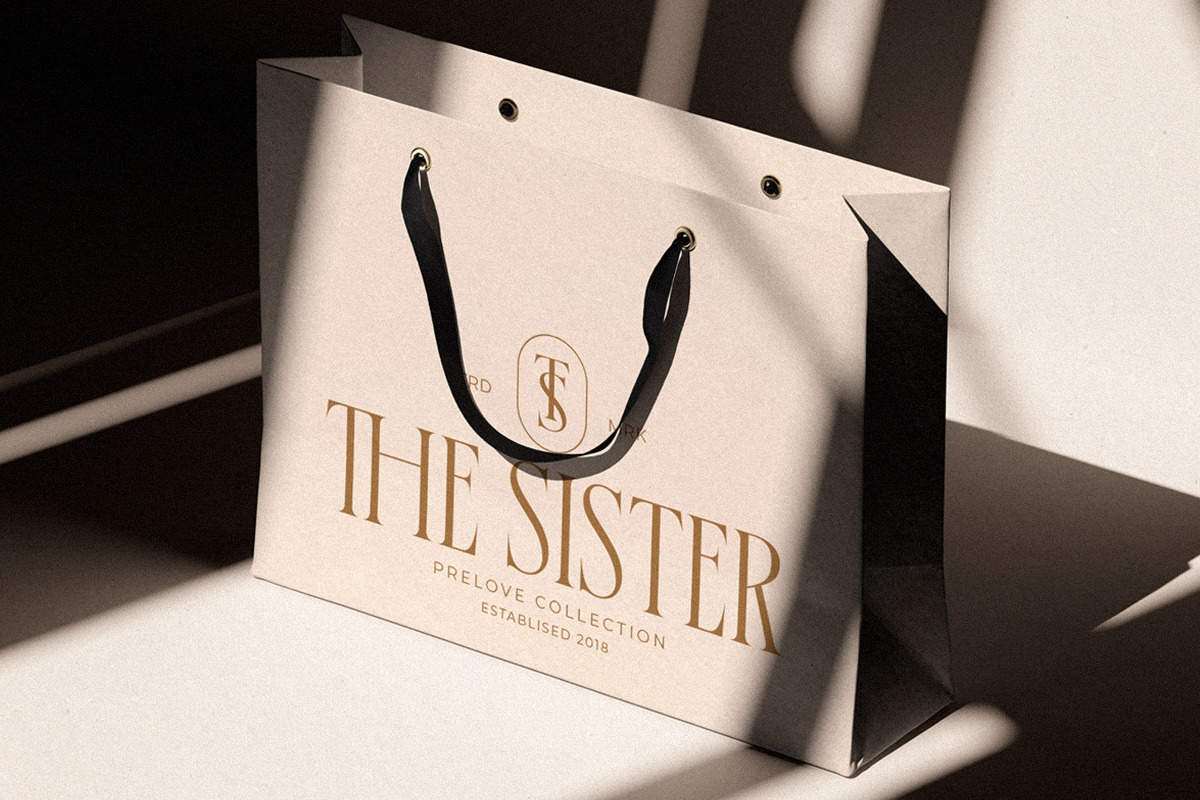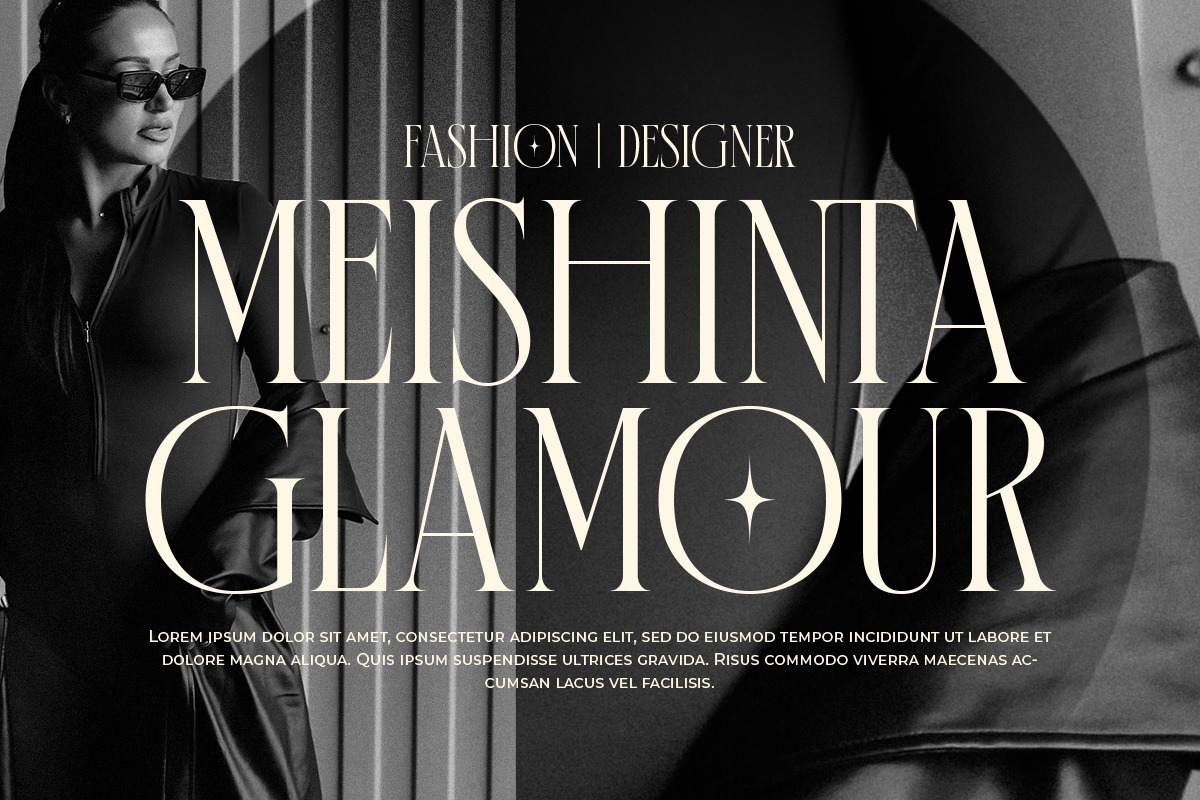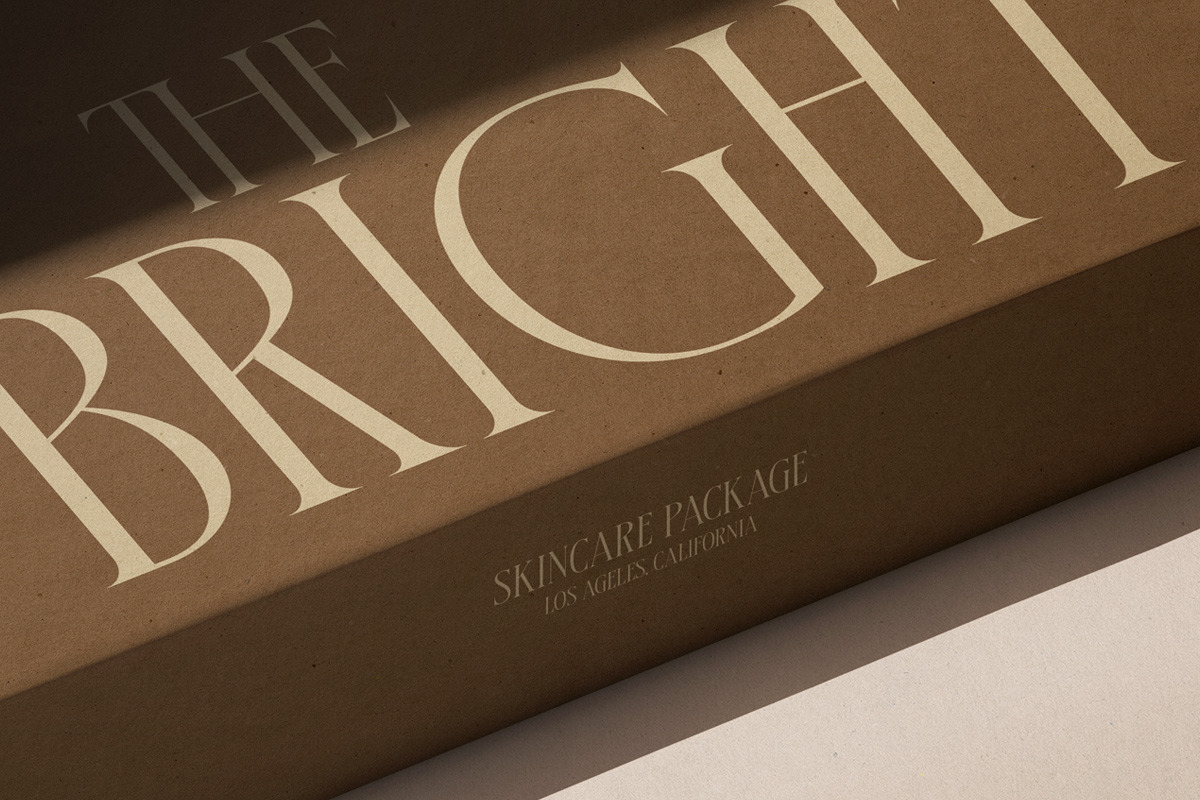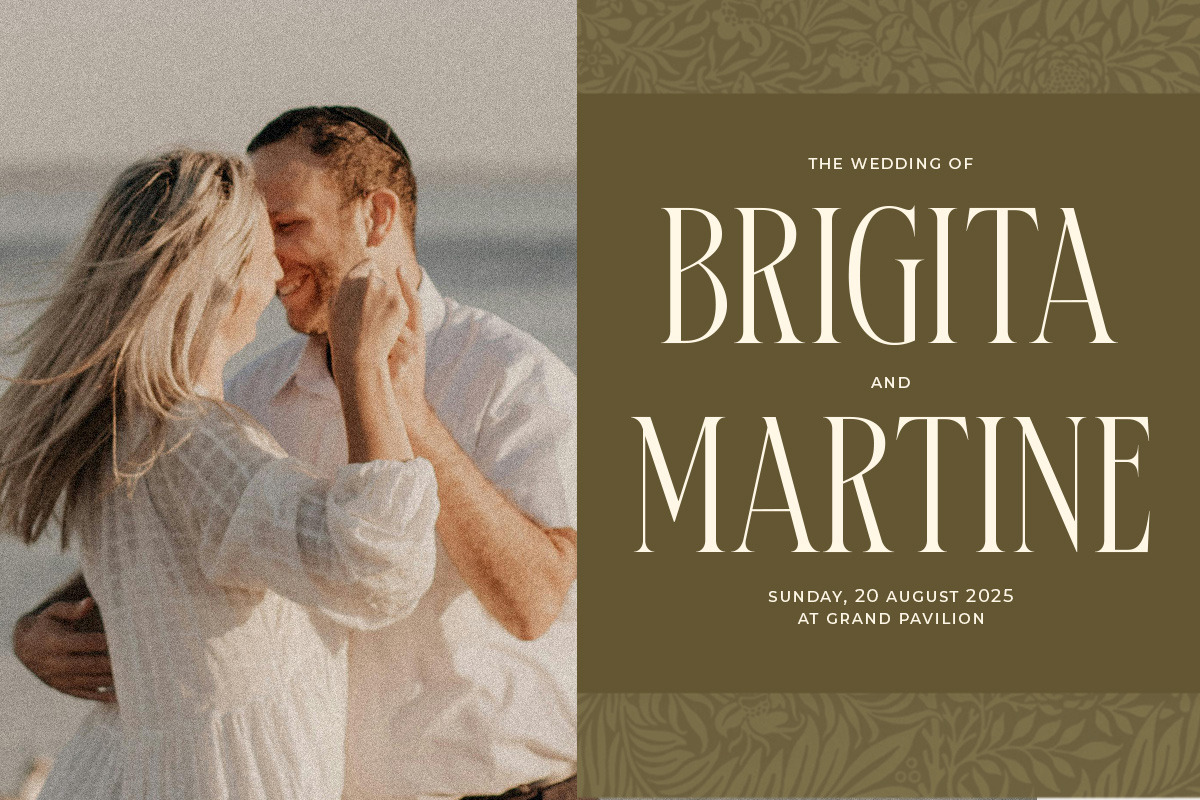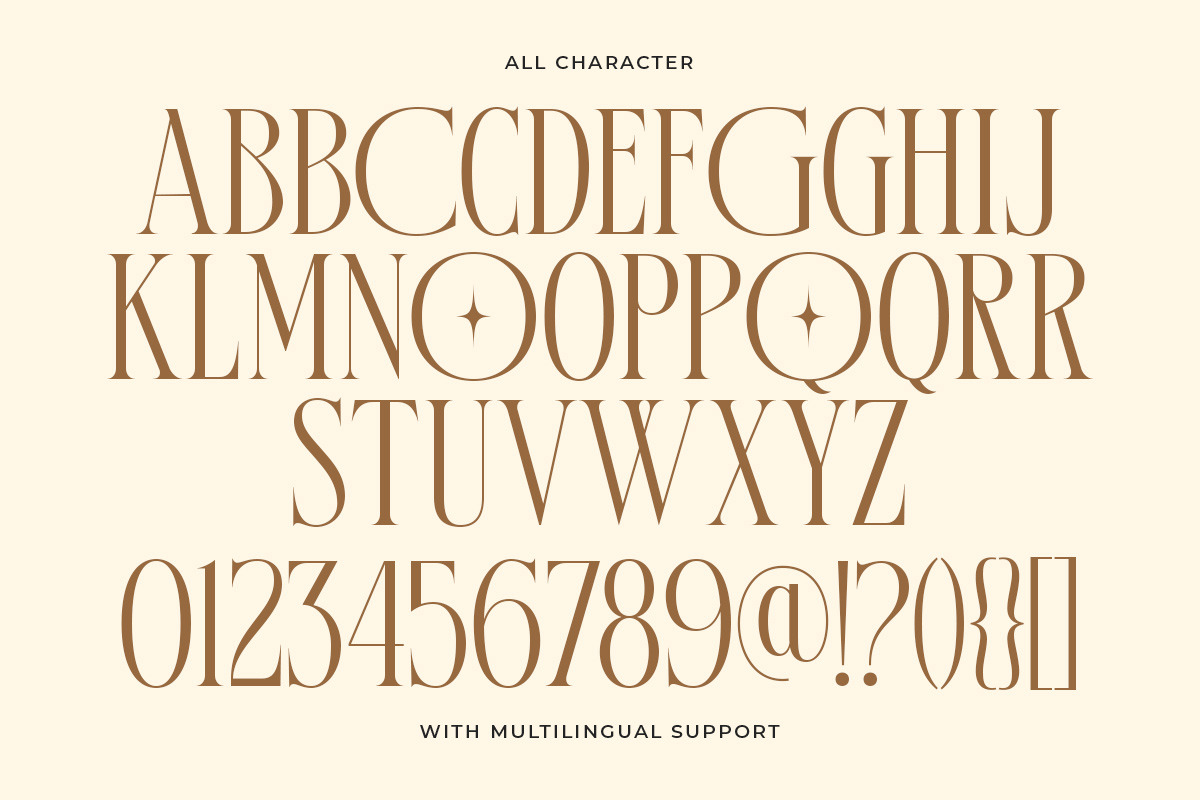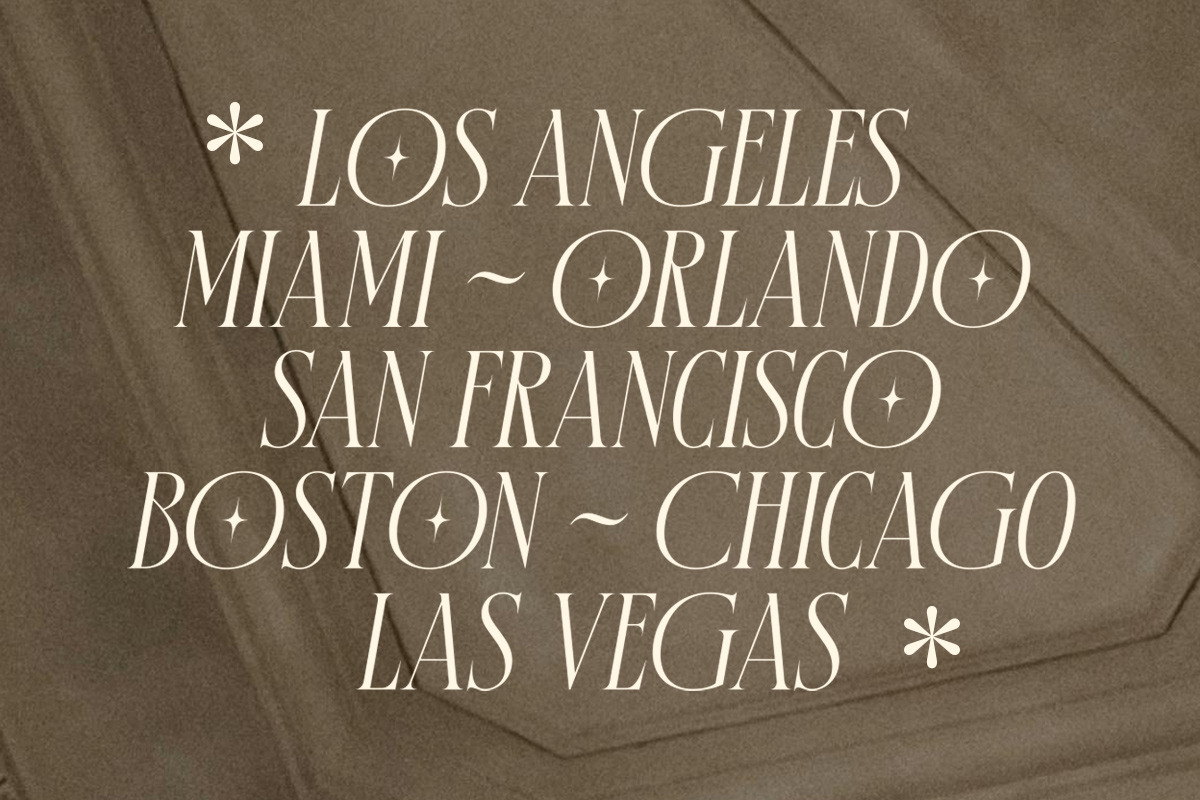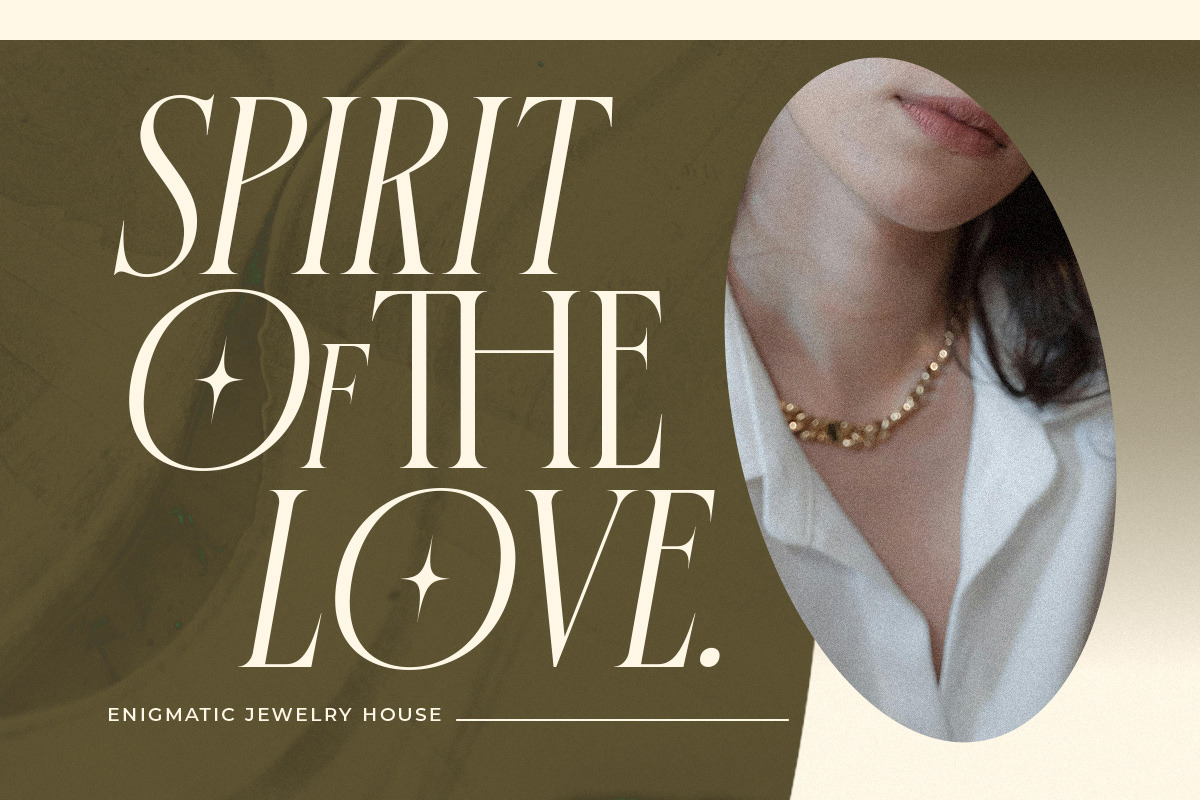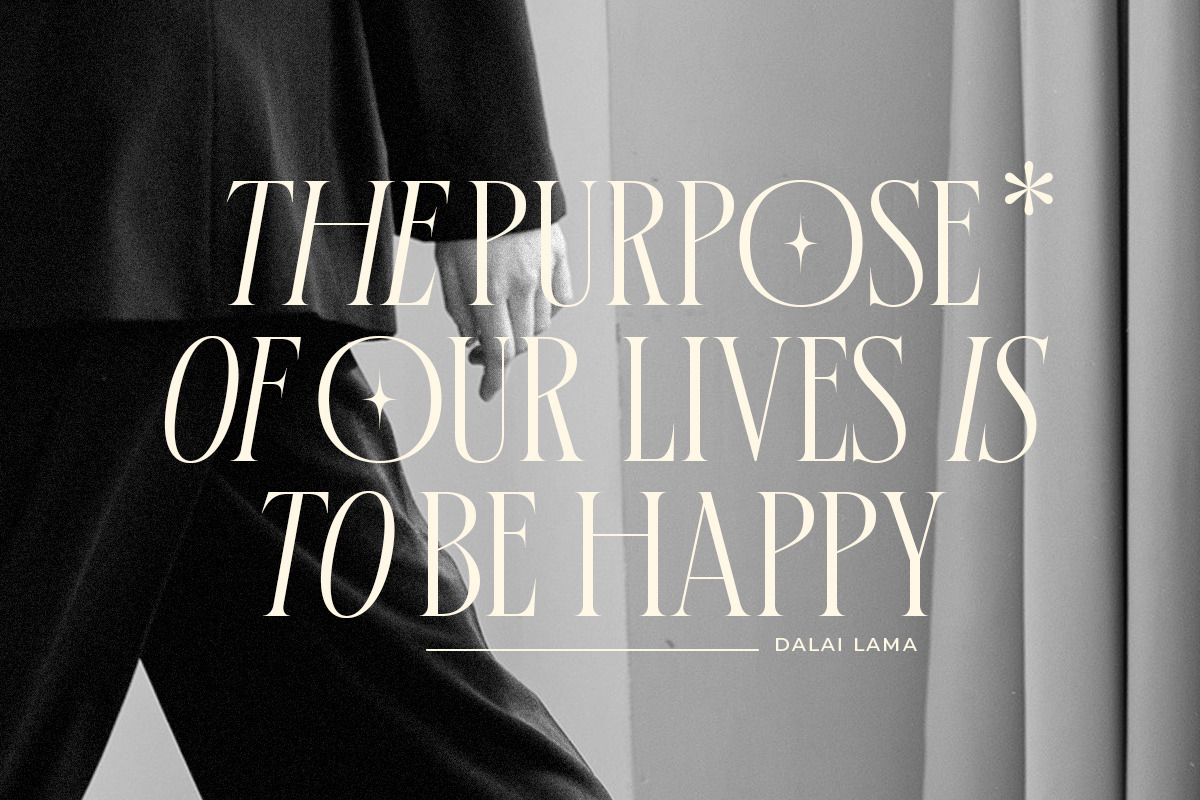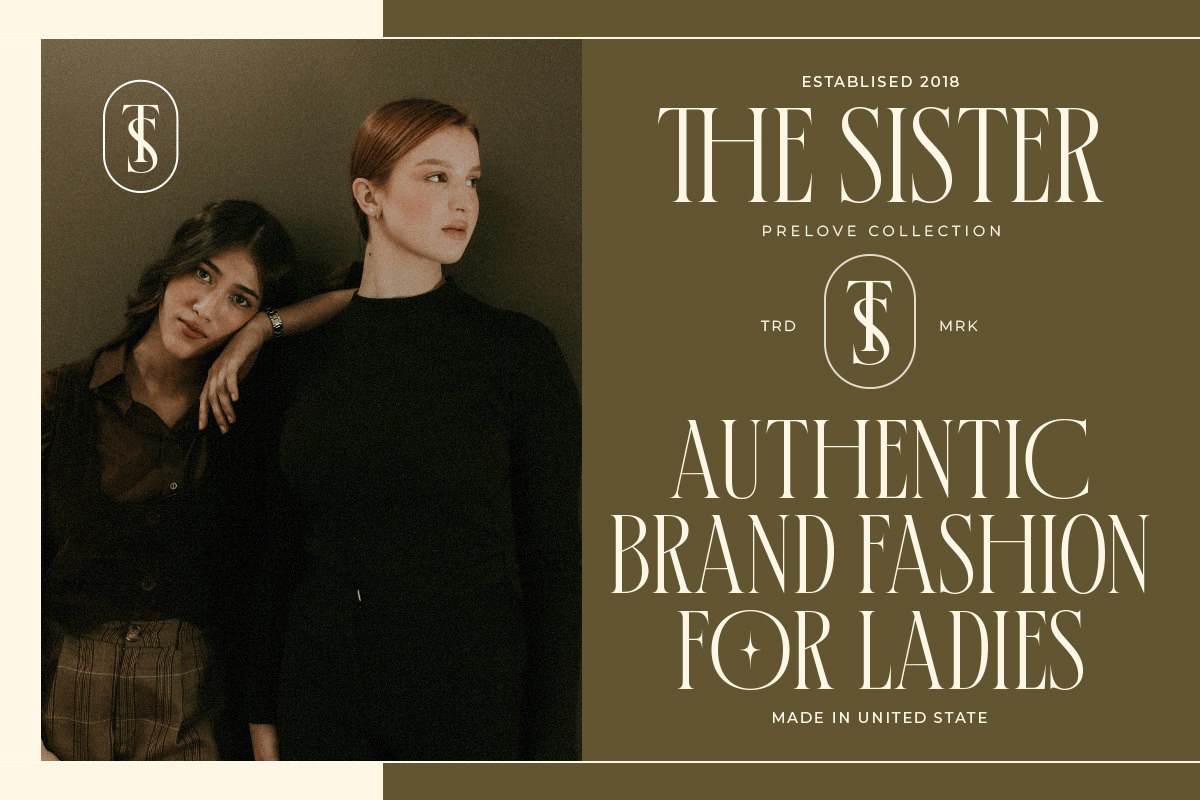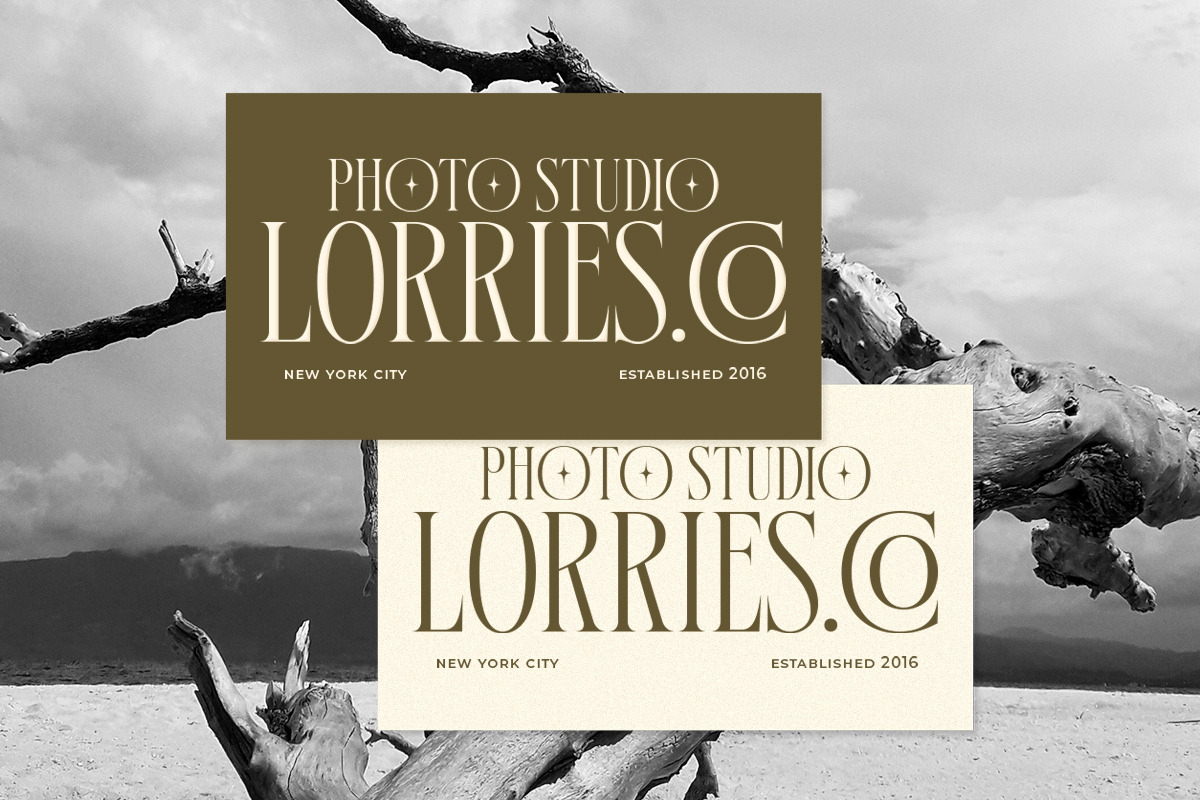
MCO - Chilthon Foliat
CHILTHON FOLIAT is a unique font that combines the clean lines of a serif font with an elegant feel. The result is a font that is modern and elegant, and perfect for a variety of design projects.
Key Features: Ligatures Set, OpenType Features, Multilingual Support